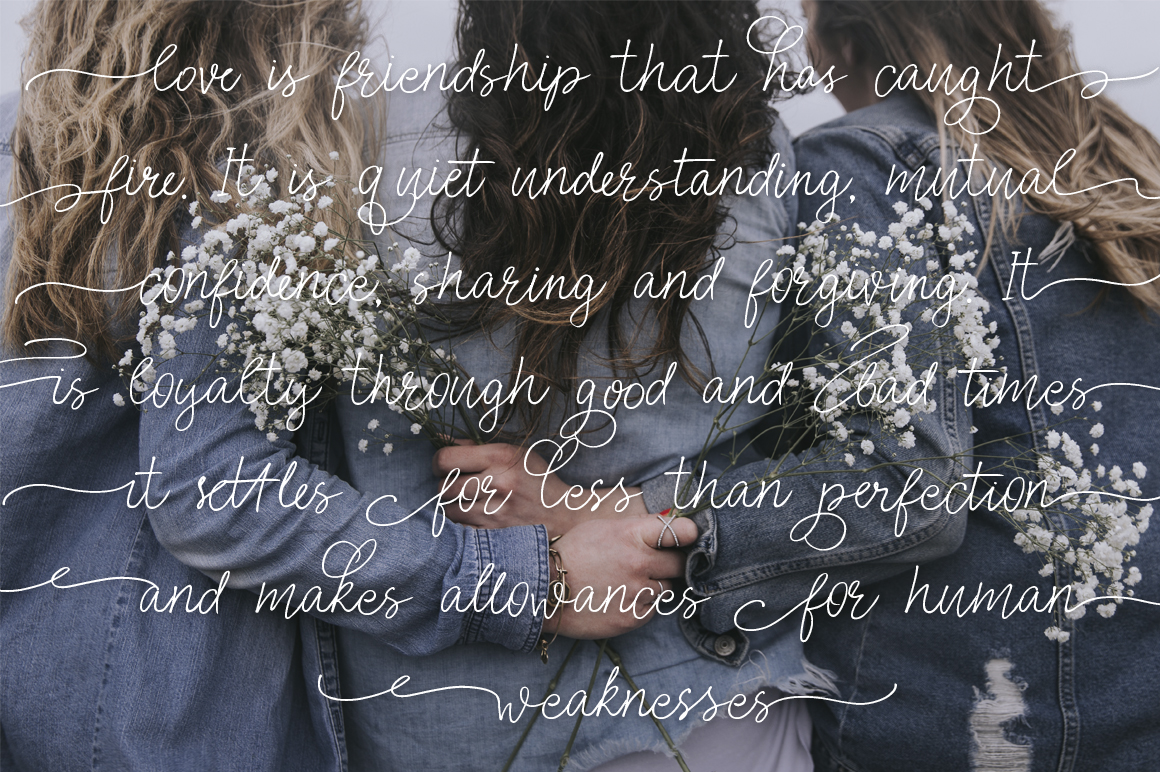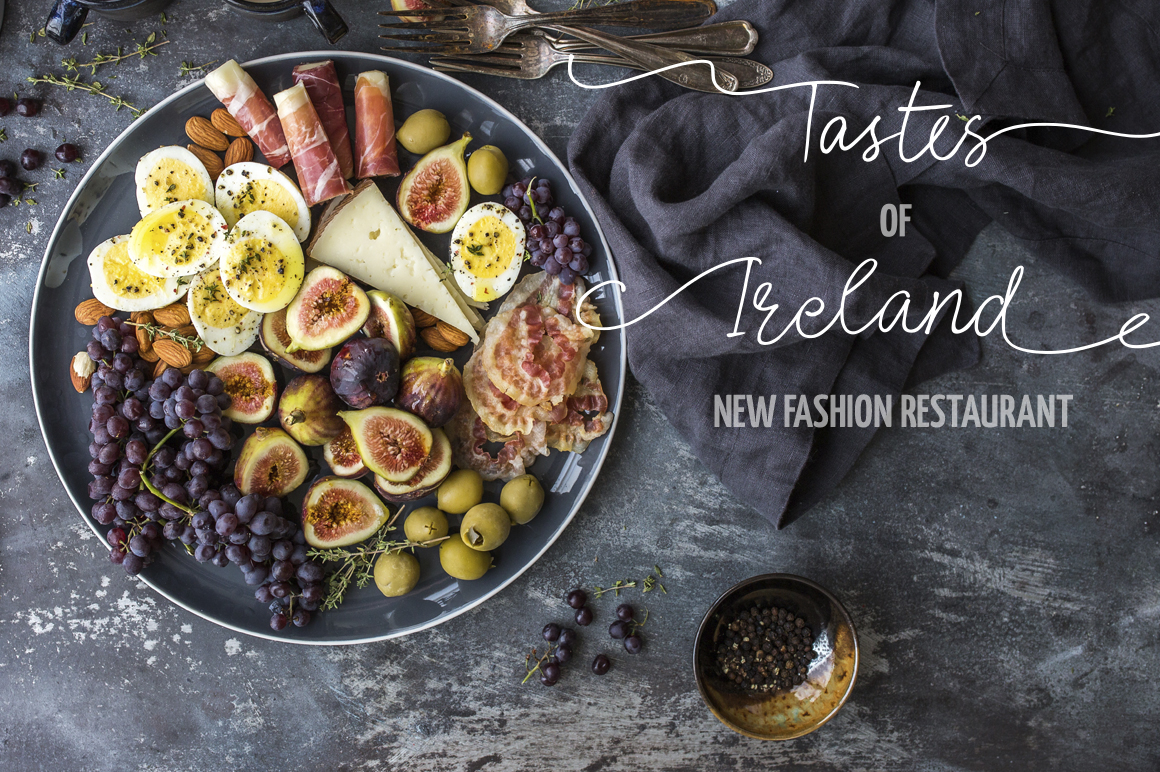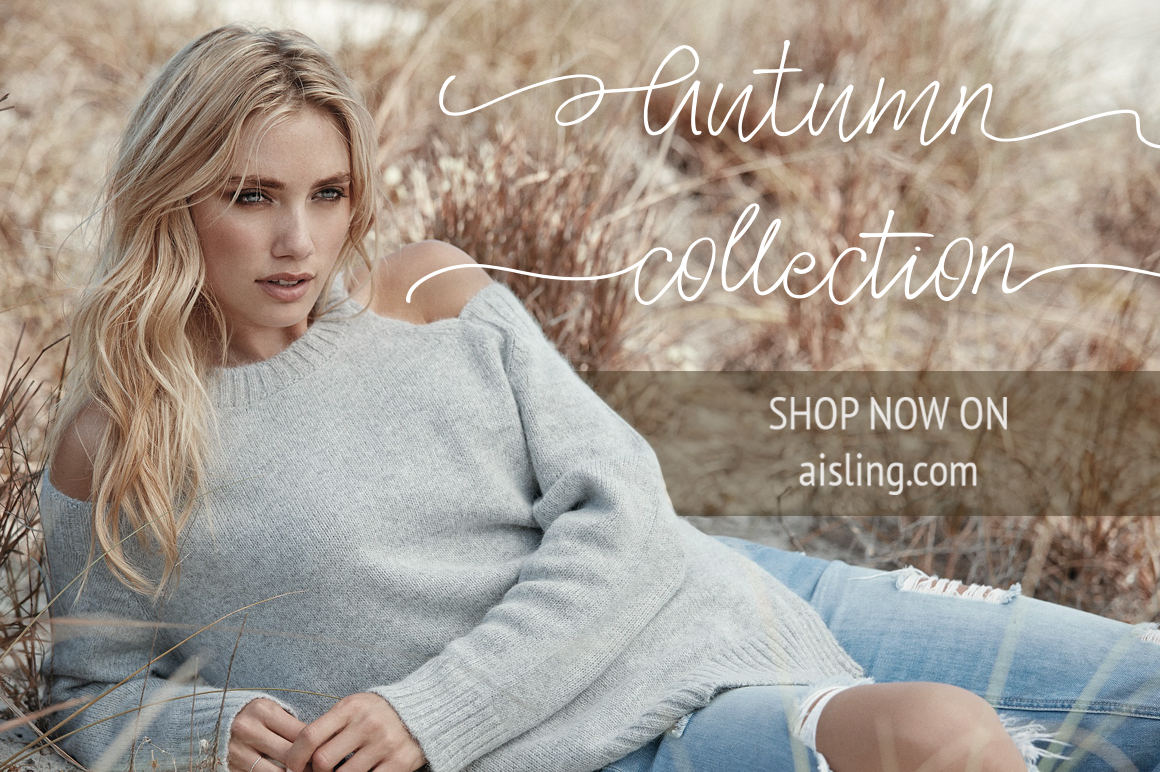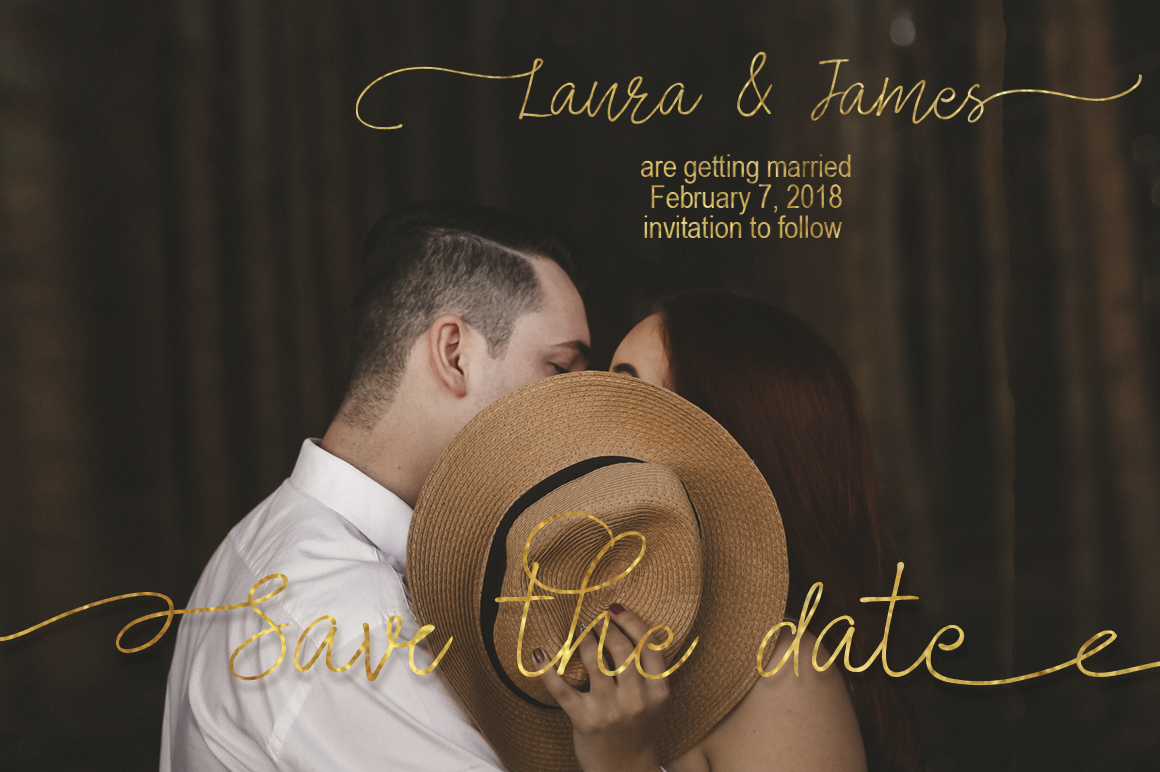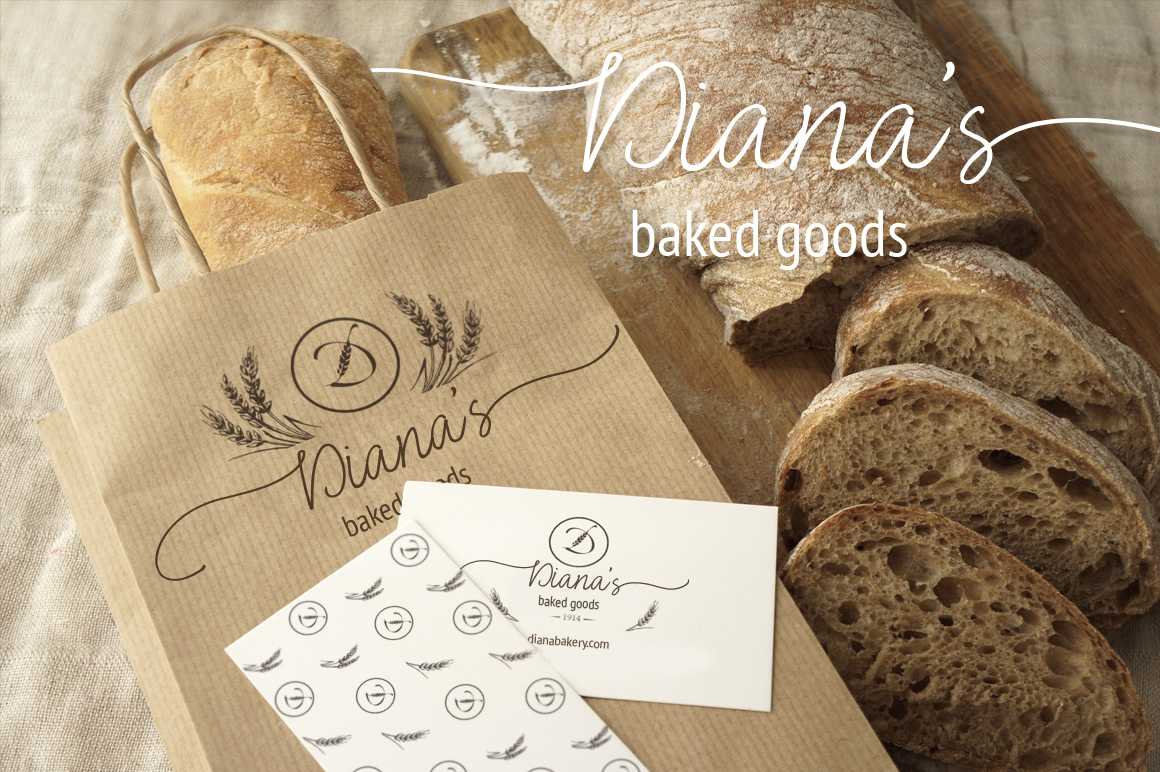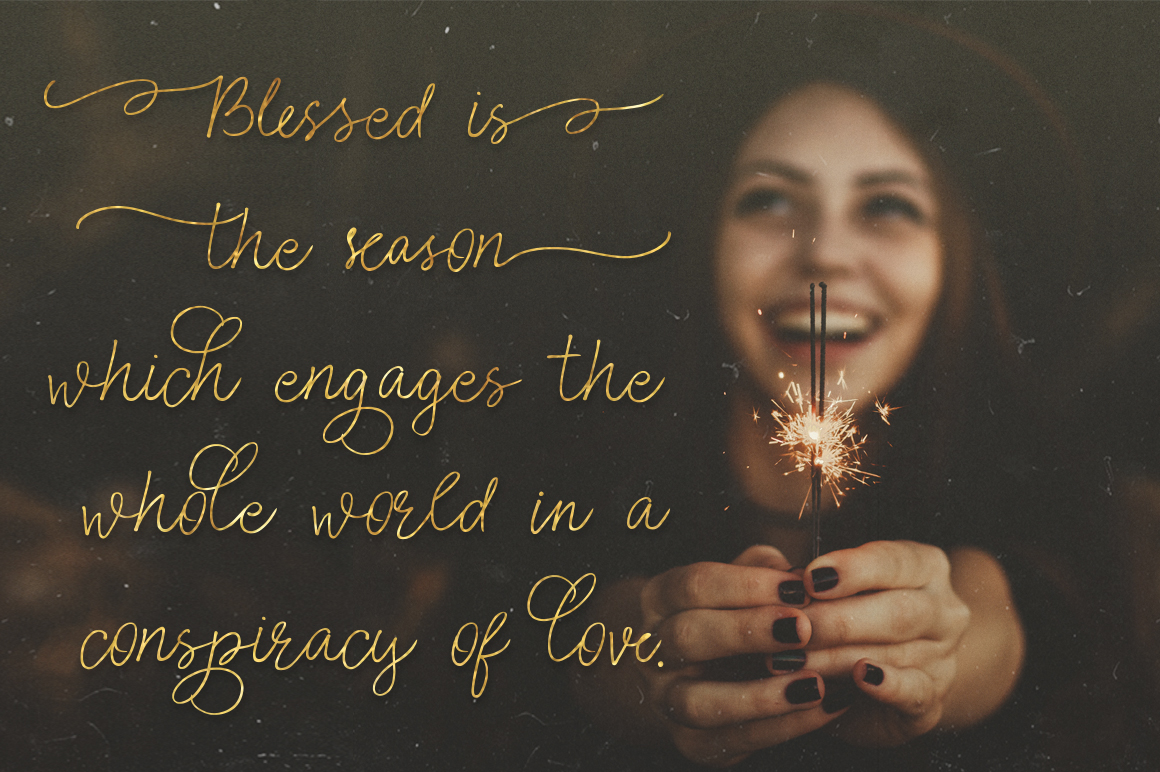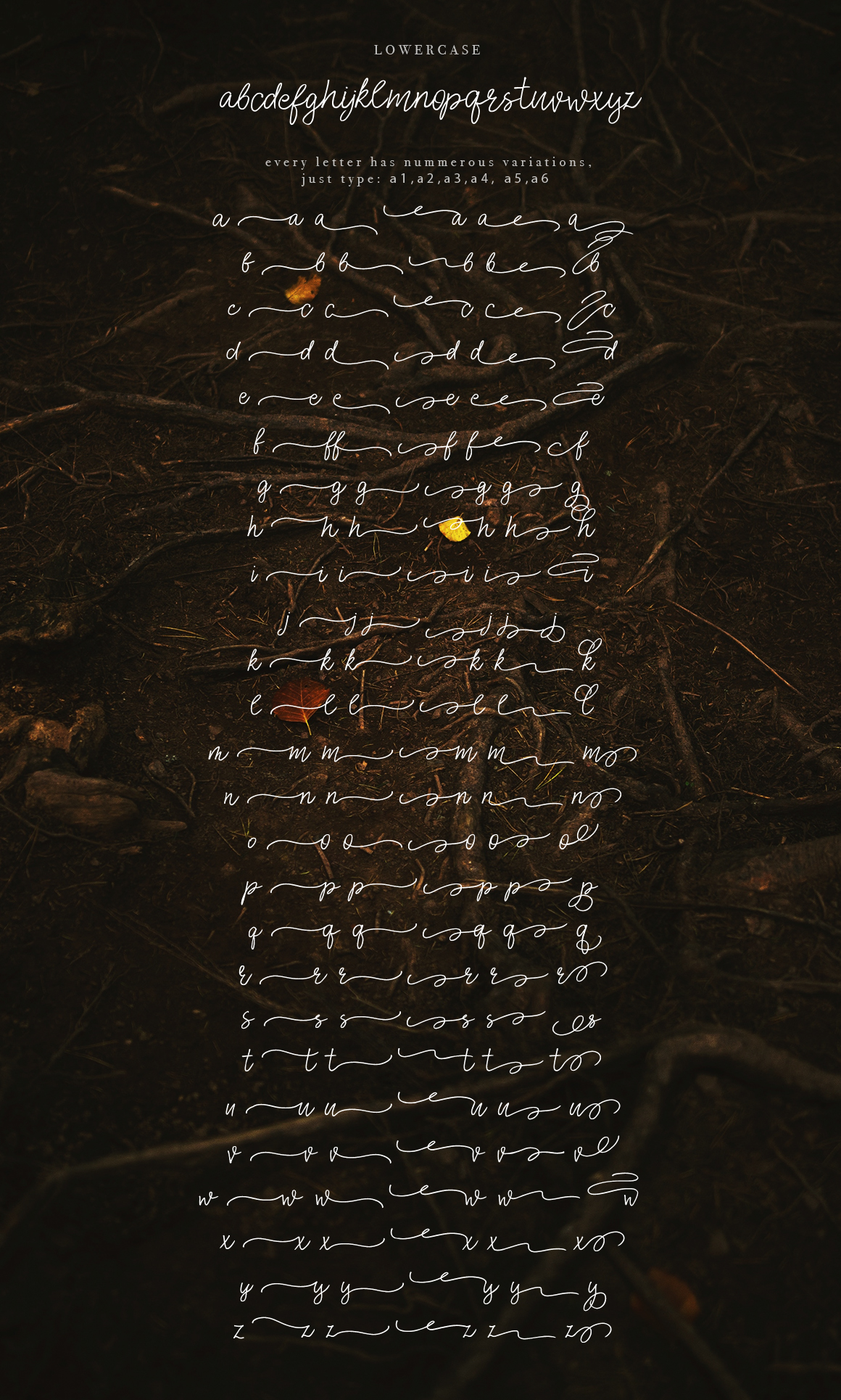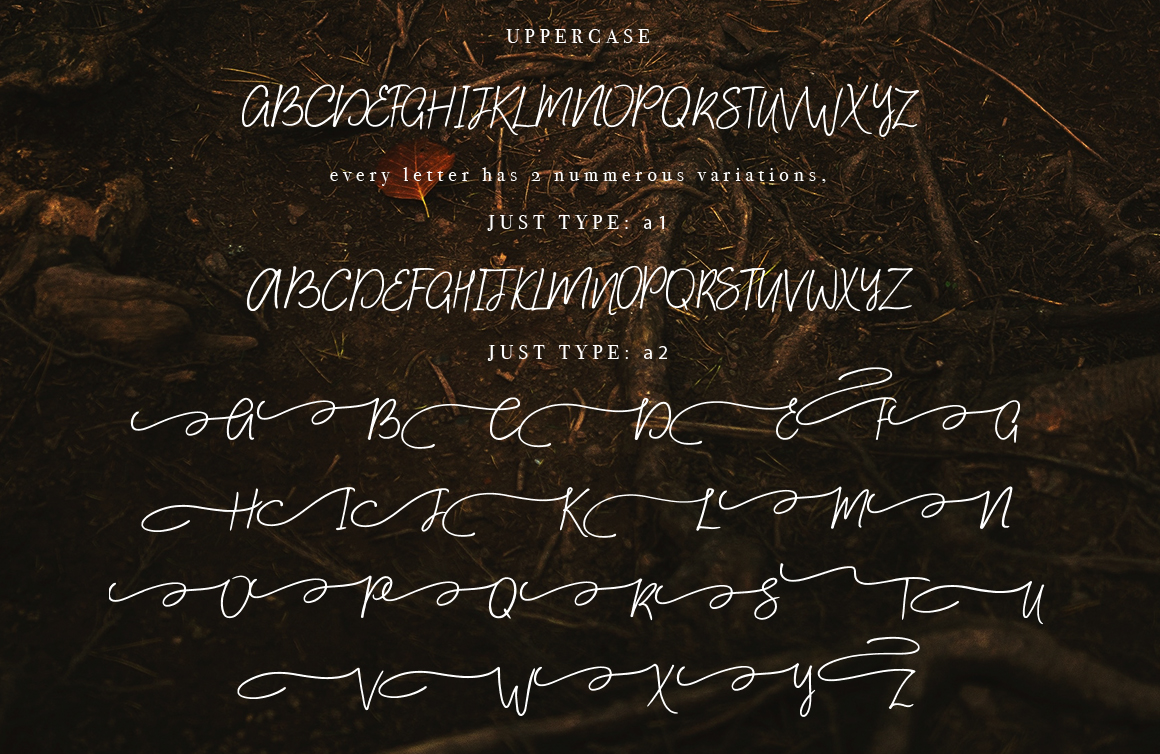
Aisling Font
About Aisling Font
Aisling is a beautiful script font, inspired by the beauty of Ireland. This font is decorative and romantic, and can give any creative project a whimsical appeal.